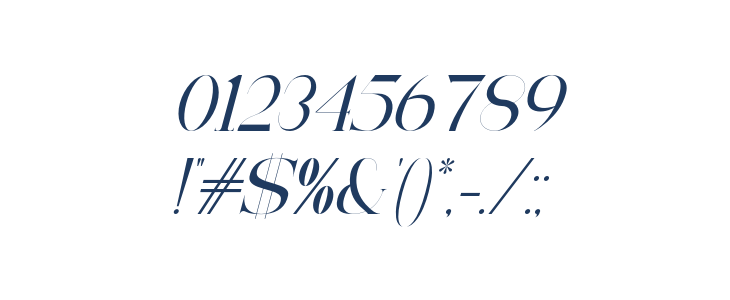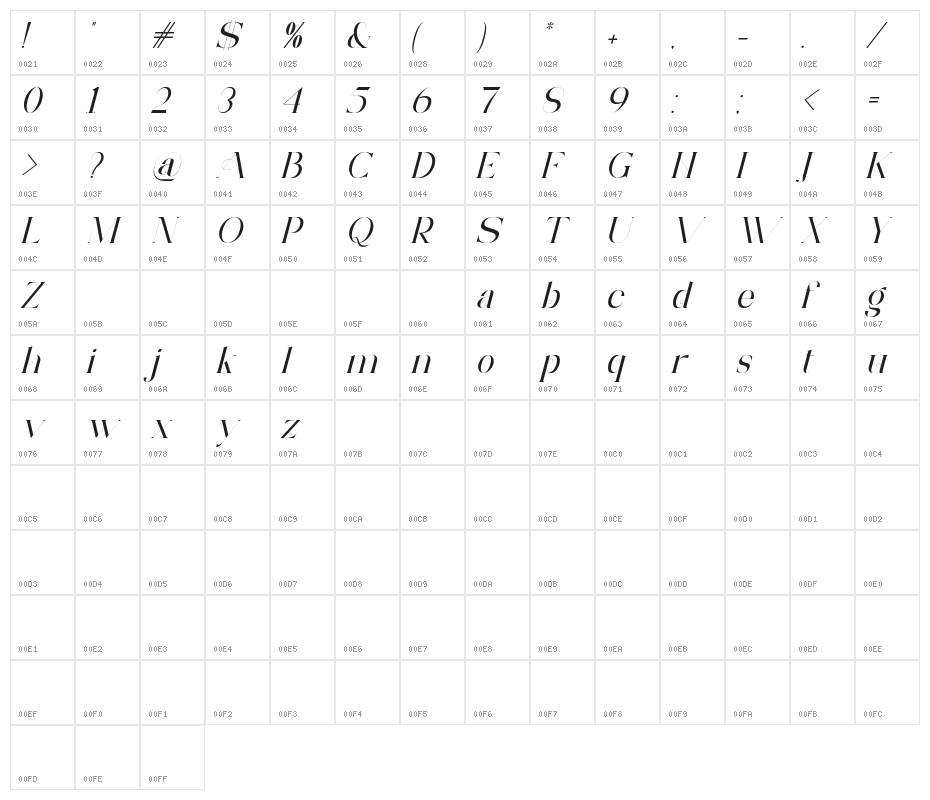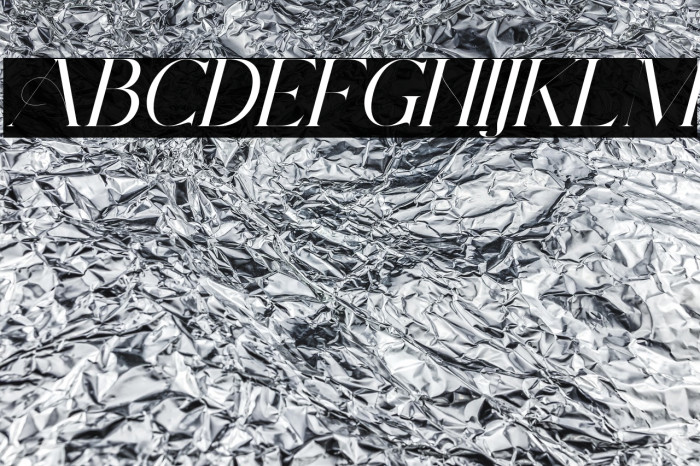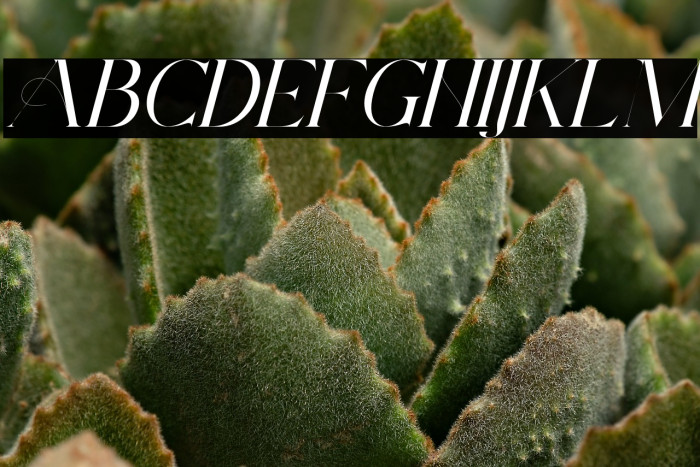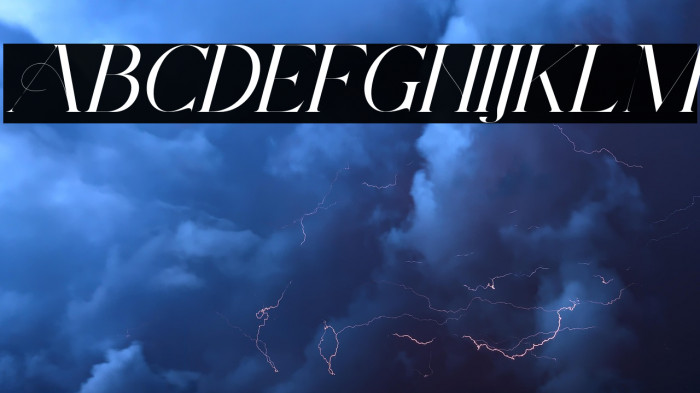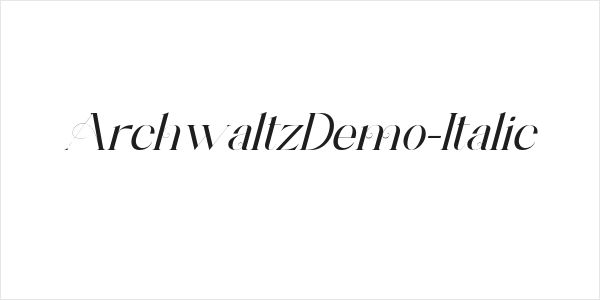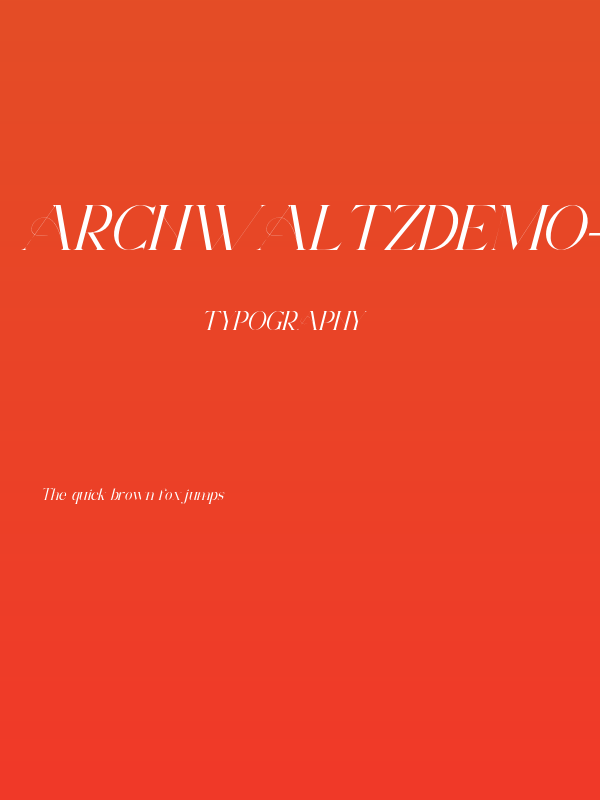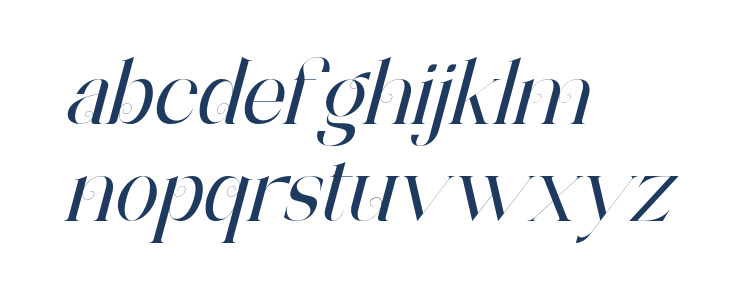
ArchwaltzDemo-Italic Font
ArchwaltzDemo-Italic Description
This font exudes elegance and sophistication with its italicized, flowing script. The letters are gracefully slanted, adding a sense of motion and dynamism. Each character features delicate, swirling serifs that enhance its decorative appeal. The uppercase letters are tall and commanding, while the lowercase letters maintain a consistent style with a slightly more subdued presence. The numerals are stylishly integrated, matching the overall aesthetic with their refined curves. Special characters are thoughtfully designed, maintaining the font's cohesive look. The high contrast between thick and thin strokes adds to the font's dramatic flair, making it ideal for projects that require a touch of class and distinction.
| Proposed Projects | Ideal for wedding invitations, luxury branding, editorial design, and elegant packaging. |